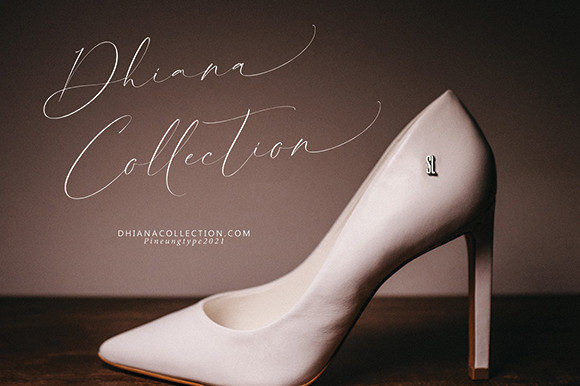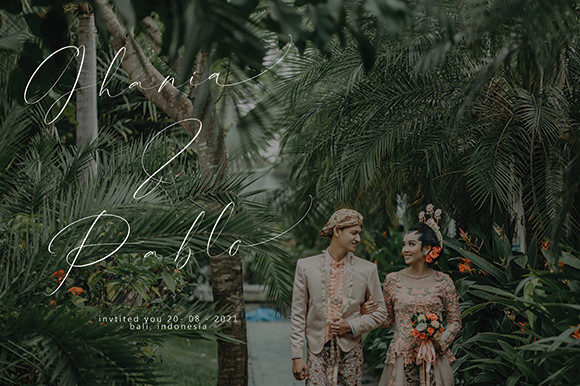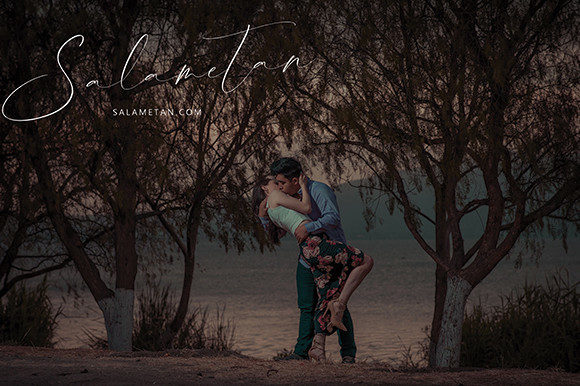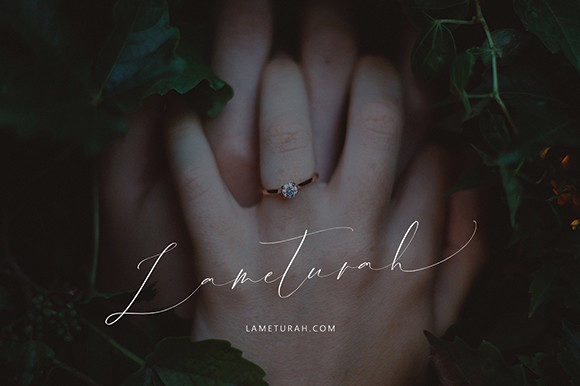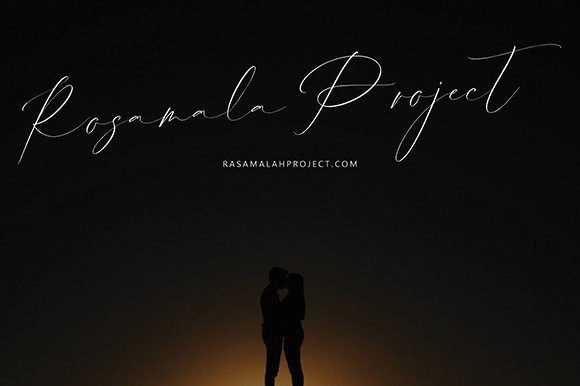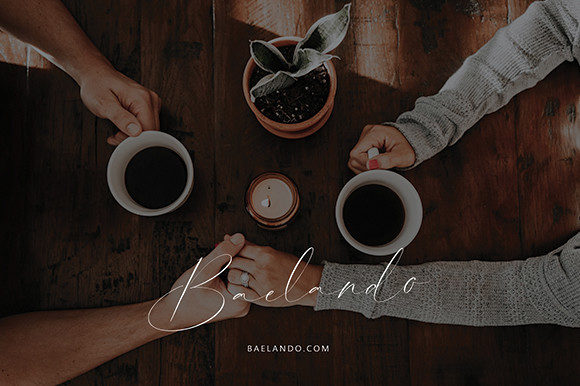
Introduction to Malirra Font Font
Fonts play a crucial role in design, and the Malirra Font font is a typeface that brings both character and versatility to any project. Whether you’re working on a branding project, a website, or a print design, the Malirra Font font offers a unique style that can elevate your work.
Malirra is a beautiful, thin lettered and elegant script font.
It has beautiful and well balanced characters and as a result, it matches a wide pool of designs This font is PUA encoded which means you can access all of the glyphs and swashes with ease.
Key Features of Malirra Font Font
Why Choose Malirra Font Font?
The Malirra Font font is more than just a typeface – it’s a design tool that helps you communicate your message with style and clarity. Its unique character set and versatile design make it suitable for a wide range of applications, from elegant invitations to bold headlines.
With its carefully crafted letterforms and balanced proportions, the Malirra Font font ensures readability and visual appeal across all mediums.
What makes Malirra Font font special?
The Malirra Font font stands out with its unique design, exceptional readability, and versatility across various design applications.